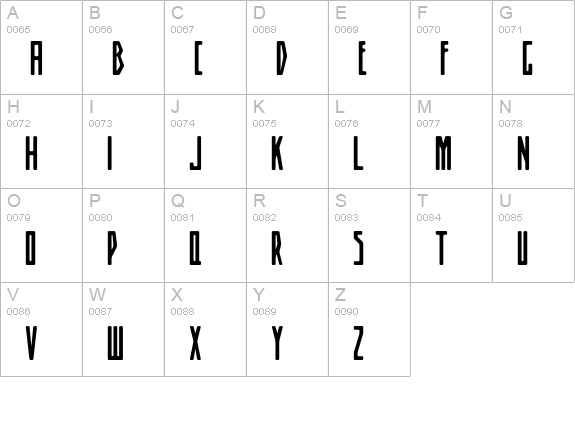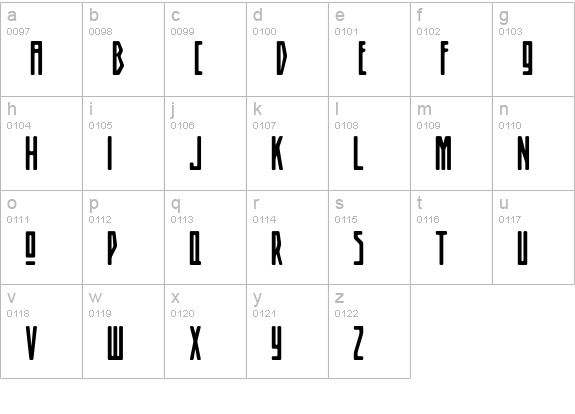
SmithPremier Font Details
SmithPremier is a stunning font that exudes elegance and professionalism. With its clean lines and timeless design, this font is perfect for adding a touch of sophistication to any project. Whether you're designing a logo, creating a wedding invitation, or crafting a business presentation, SmithPremier will elevate your work to new heights. What sets SmithPremier apart is its versatility. This font seamlessly transitions from bold headlines to delicate script, making it suitable for a wide range of design applications. Its classic yet contemporary style captures attention and leaves a lasting impression. But what makes SmithPremier truly unique is that it is freely available to download at FontsMarket.com. Yes, you read that right – this exceptional font can be yours without any cost. Now, you can enhance your designs with professional-looking typography without breaking the bank. Downloading SmithPremier is a breeze. Simply visit FontsMarket.com, locate the font, and click the download button. Within seconds, you'll have access to a font that will transform your design projects. The best part? You can use SmithPremier for personal or commercial purposes, giving you the freedom to bring your creative vision to life without any limitations. Don't miss out on this incredible opportunity to elevate your designs. Download SmithPremier today and see the difference it can make in your work.